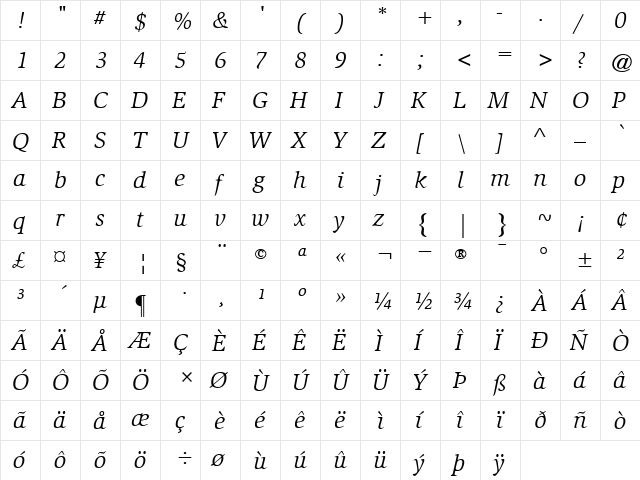
Slimbach BookItalic
Design Context for Slimbach Typeface
Slimbach offers clean, dependable letterforms without strong stylistic allegiance, making it a practical choice for designers who need flexibility. Its italic angle brings a sense of urgency and motion to the letterforms.
Pro Tip: Use Slimbach for emphasis, pull quotes, and subheadings where its slanted energy can add rhythm to the layout.